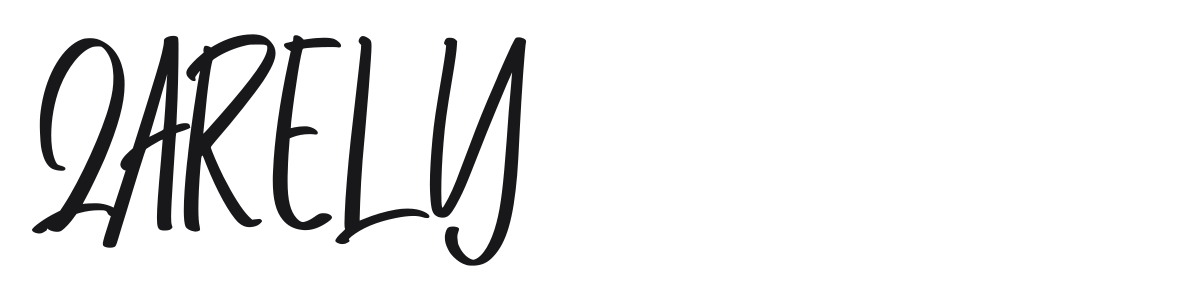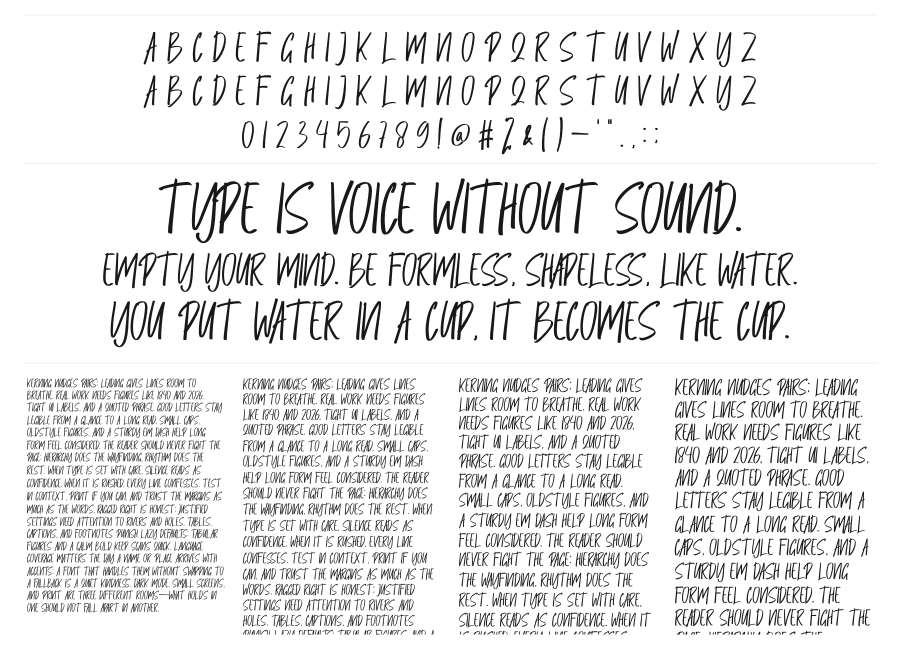
Qarely
Qarely is a bold, slanted handwritten font with the fast, confident energy of a marker-written sign. The condensed characters lean hard to the right, packed tightly together with natural stroke irregularities that keep it feeling genuine rather than mechanical. It brings personality to posters, packaging, and brand identities that need an authentic human touch.